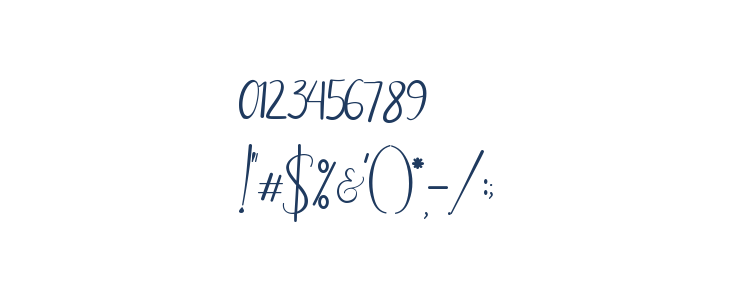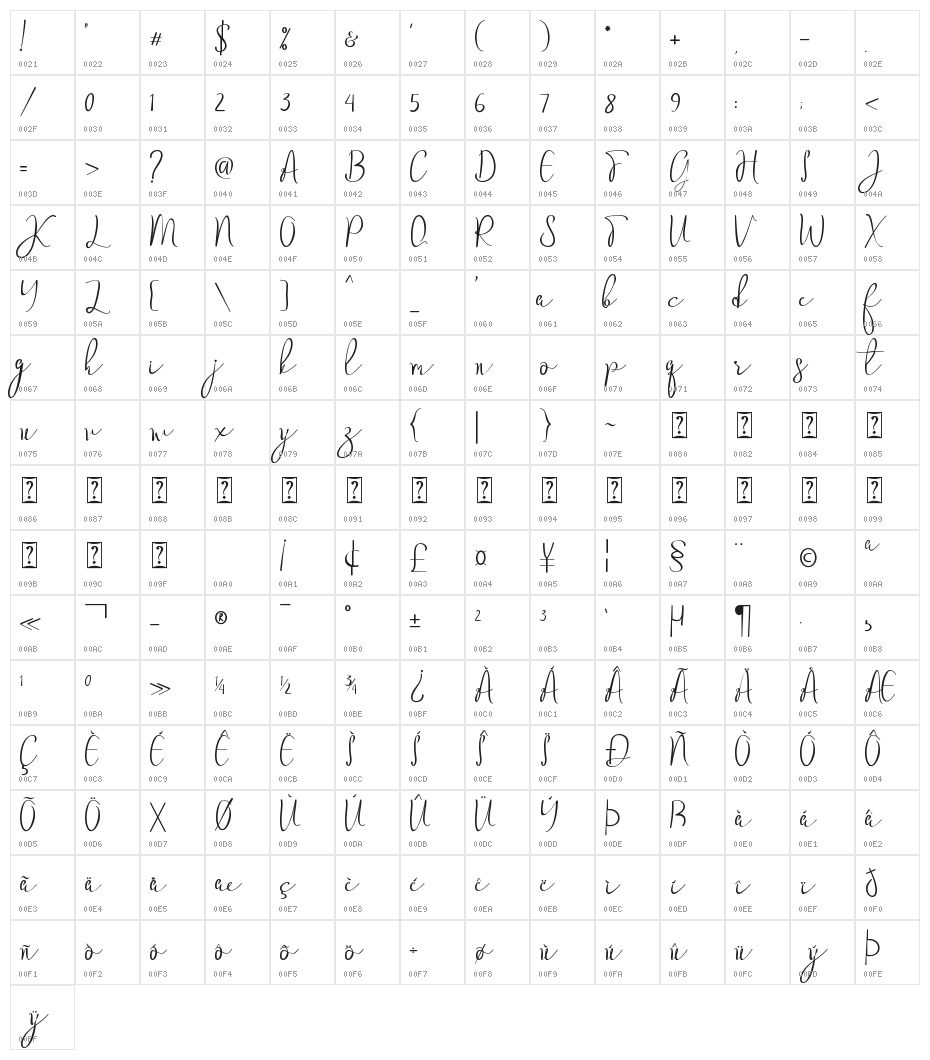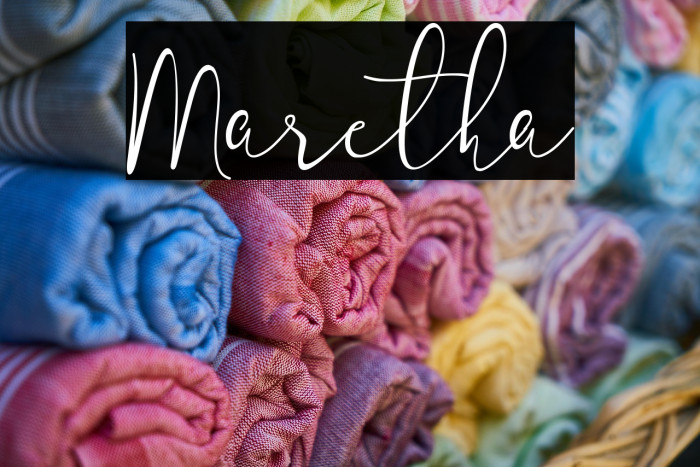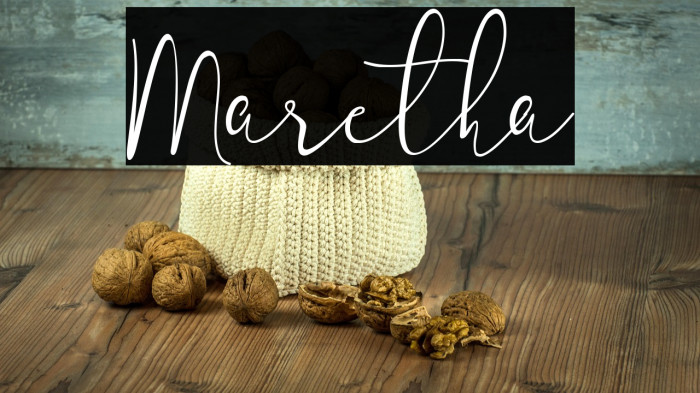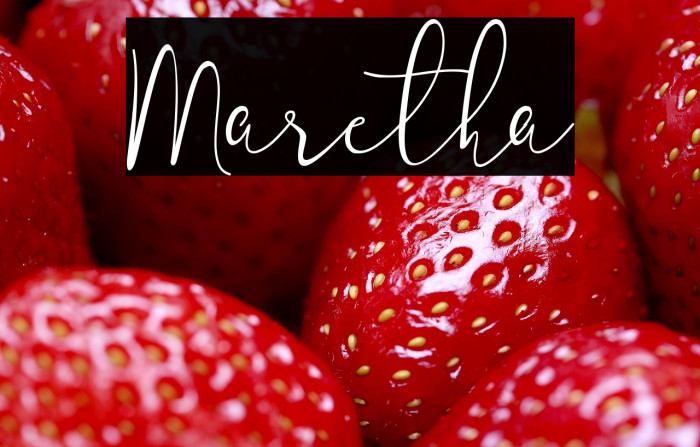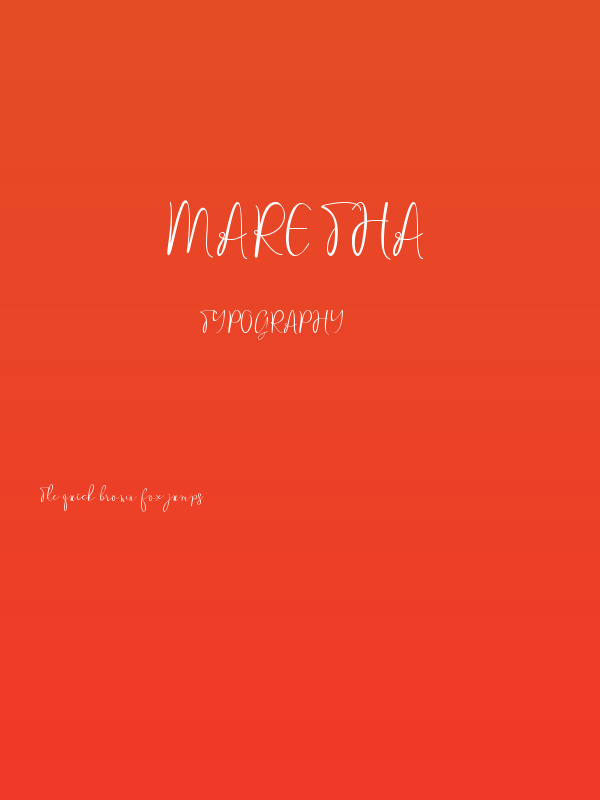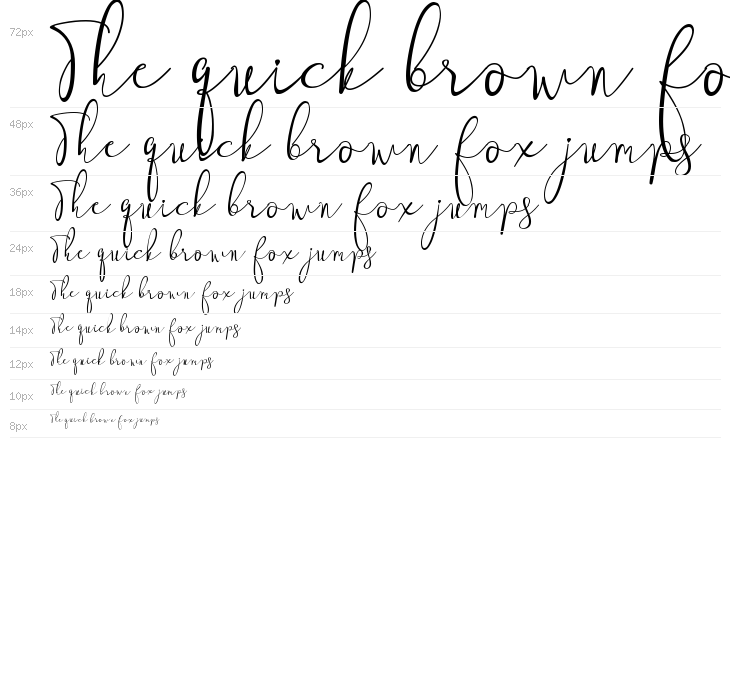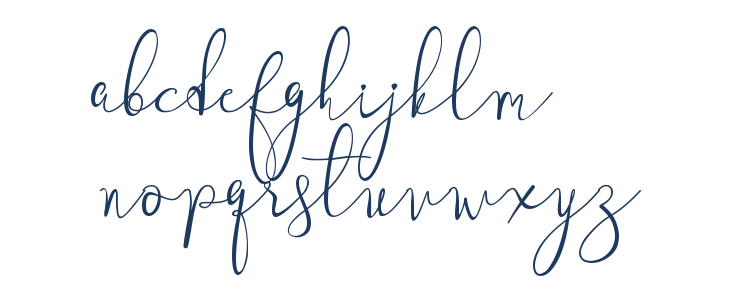
Maretha Font
Maretha Description
This font features a fluid, cursive style with elegant loops and swirls, giving it a sophisticated and artistic appearance. The uppercase letters are tall and slender, with graceful curves that enhance their decorative quality. The lowercase letters maintain a consistent flow, connecting seamlessly in a script-like manner. Numbers and special characters are designed with similar elegance, ensuring a cohesive look across all elements. The overall design is reminiscent of handwritten calligraphy, making it suitable for projects that require a personal and artistic touch.